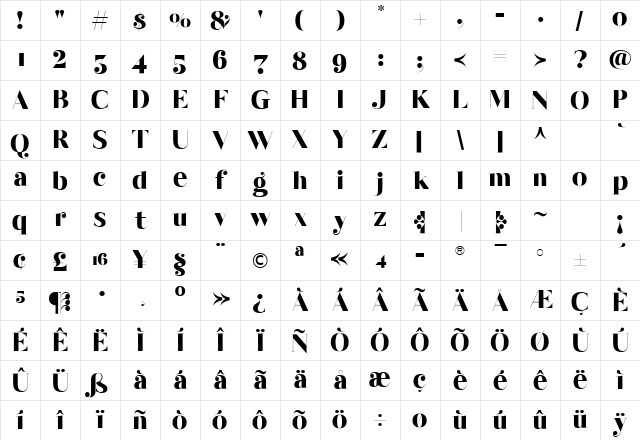
Complete TFQueenDido Extrabold glyph index. Displaying only characters natively supported by TFQueenDido Extrabold font.
TFQueenDido is a composed and adaptable typeface that performs quietly and consistently across a wide range of design contexts. Its bold stroke weight gives it real presence on the page.